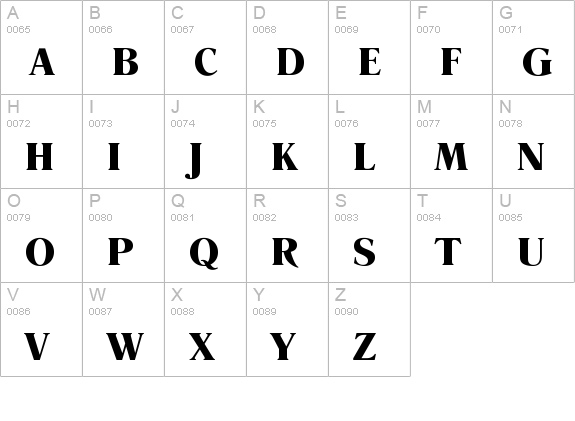
RomanaEF-Bold Font Details
RomanaEF-Bold is a strong, high-contrast variant in the RomanaEF typeface family \xE2\x80\x94 well suited to headlines, attention-grabbing titles, and strong calls-to-action.
RomanaEF-Bold is a modern and elegant font that exudes sophistication and style. With its bold and eye-catching design, this font is perfect for making a statement in any project. The strong, clean lines of RomanaEF-Bold make it ideal for headlines, titles, and branding materials. What's even better is that RomanaEF-Bold is available for free download at FontsMarket.com. This means you can easily add this stunning font to your collection without any cost. Whether you're a designer looking for a versatile typeface or a business owner in need of a professional font for your marketing materials, RomanaEF-Bold has got you covered. Download it today and elevate your designs with this beautiful and timeless font.